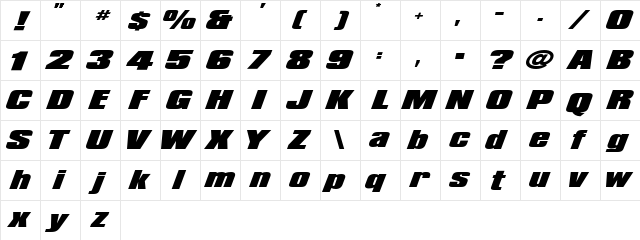
LHFConvectaBase Medium
Design Context for LHFConvectaBase Typeface
LHFConvectaBase takes a measured approach to typography — its balanced proportions and neutral character make it a reliable workhorse for both digital and print work.